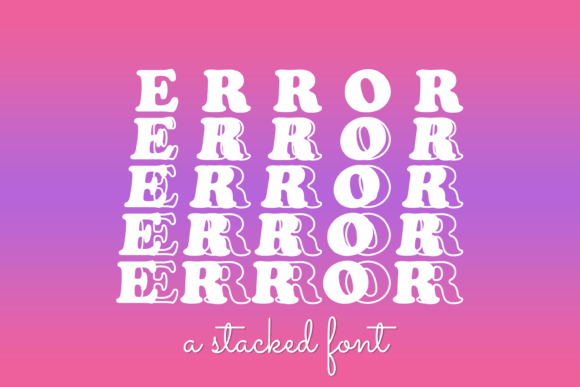
Greetings, fellow font enthusiasts! Welcome to the world of Error, a dazzling display font that's ready to ignite your creativity. As you embark on your design journey, allow Error to be your guiding light, illuminating your creations with its captivating charm.
Error is not just a font; it's an artistic muse, an expression of your unique style. Whether you're a seasoned designer or a novice just starting out, this font will empower you to unleash your imagination and craft designs that leave a lasting impression.
Imagine stepping onto a sun-kissed beach, the gentle breeze caressing your skin as the waves whisper their secrets. Error captures the essence of this serene setting, inviting you to evoke a sense of tranquility and freedom in your designs. Its flowing curves and organic shapes mimic the graceful lines of a conch shell, reminding you of the timeless allure of the ocean.
Error's versatility knows no bounds. Whether you're designing posters that evoke the spirit of summer, creating logos that embody the essence of a coastal retreat, or crafting invitations that transport your guests to a seaside paradise, Error will effortlessly elevate your work to new heights.
With Error, you'll discover a font that's both beautiful and practical. Its clean lines and legible characters ensure that your messages will be conveyed with clarity and impact. Whether you're designing for print or digital platforms, Error's versatility will shine through.
Take your designs beyond the ordinary and embrace the extraordinary with Error. Let your creativity soar, knowing that this font has your back. Error is not just a font; it's a key that unlocks a world of design possibilities.
So go ahead, dive into the depths of Error and let your imagination run wild. Create designs that inspire, captivate, and leave an unforgettable mark on the world. With Error by your side, the possibilities are limitless.